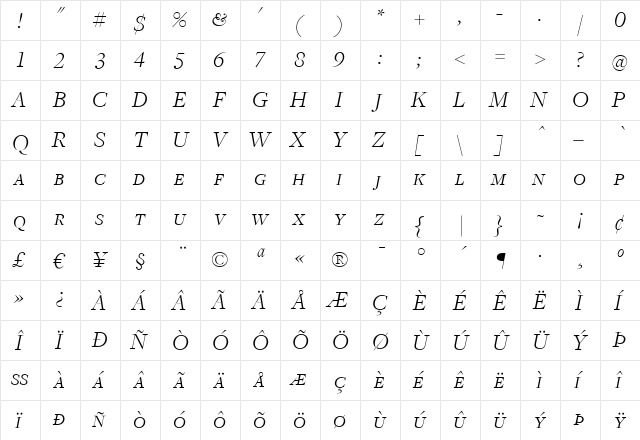
FreightDispLightItalicSC Regular Font Preview
| Foundry | Joshua Darden & Phil's Fonts, Inc |
| Designer | Joshua Darden |
Design Context for FreightDispLightItalicSC Typeface
FreightDispLightItalicSC offers clean, dependable letterforms without strong stylistic allegiance, making it a practical choice for designers who need flexibility. The dynamic lean of this cut emphasises speed and emphasis in any layout. Its slender proportions lend an understated elegance to any composition.
Pro Tip: Try FreightDispLightItalicSC for annotation and caption copy alongside an upright companion — the contrast in angle creates a dynamic but ordered typographic system.